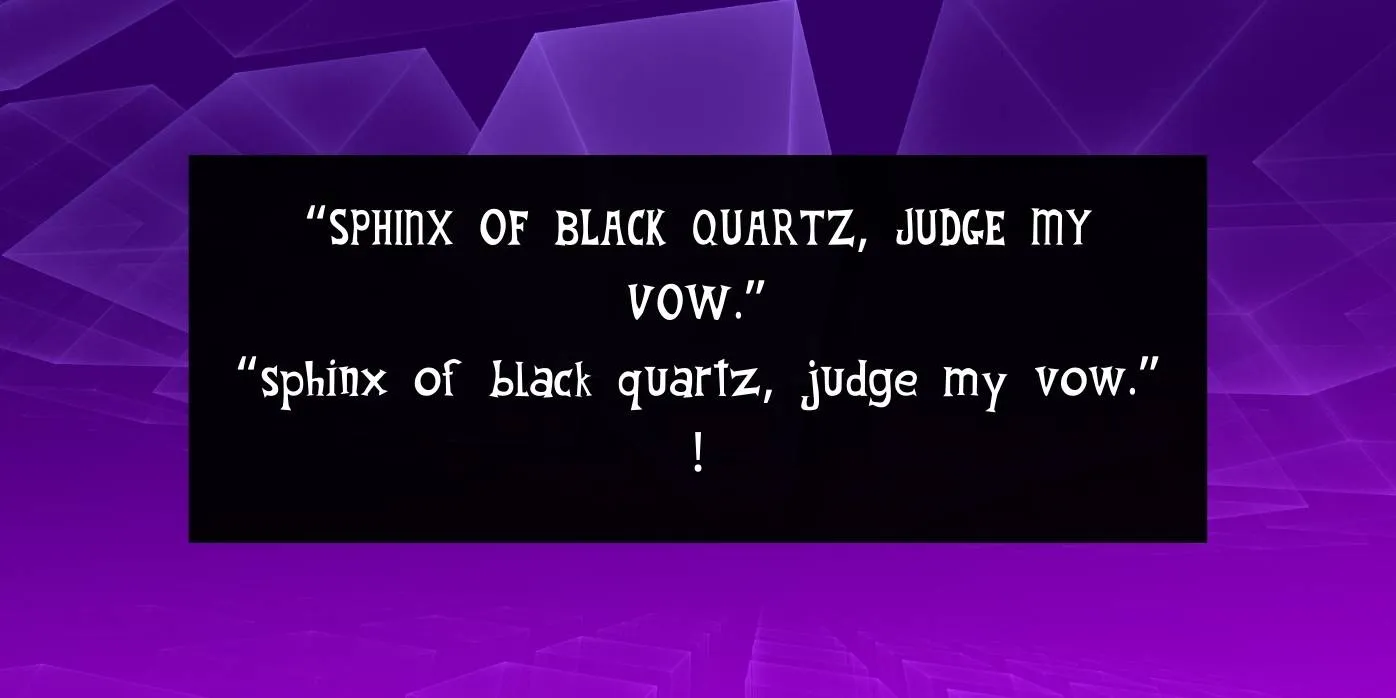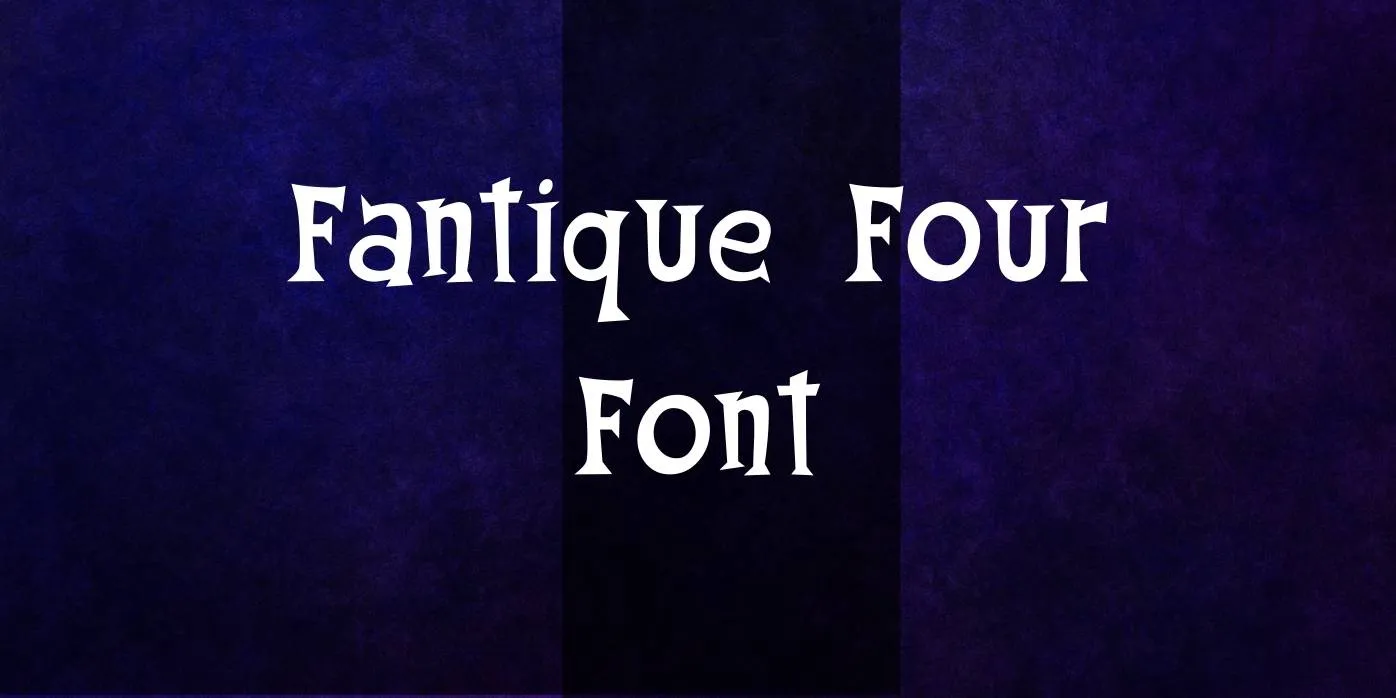
Fantique Four Font
In this post, we introduce Fantique Four Font which belongs to the serif family of fonts. This typeface was developed by Digital Empires Inc. and is available for free download on their website. This font boasts an antique look with its 4 different styles- Light, Regular, Bold, and Extrabold.
This attractive font supports up to 12 languages including Latin, Cyrillic, Greek, Turkish, and Vietnamese. The copy-and-paste function is well-suitable for different types of graphic designs. Another similar font which is calisto font is perfect for different designs. The Fantique Four Font is perfect for creating vintage-inspired designs.
The four different styles give you a lot of flexibility when it comes to choosing the right look for your project. The light style is perfect for headlines or short pieces of text, while the regular and bold styles are great for body copy.  The generator tool of this typeface is useful for different types of graphic designs.